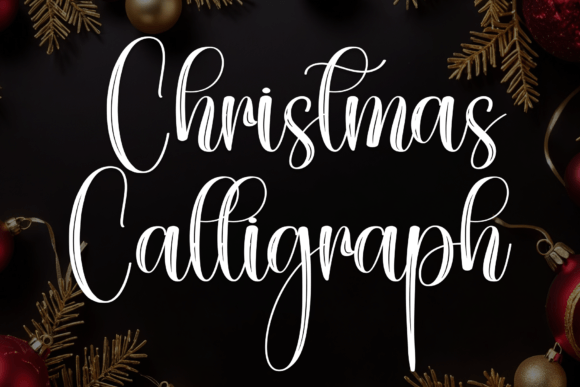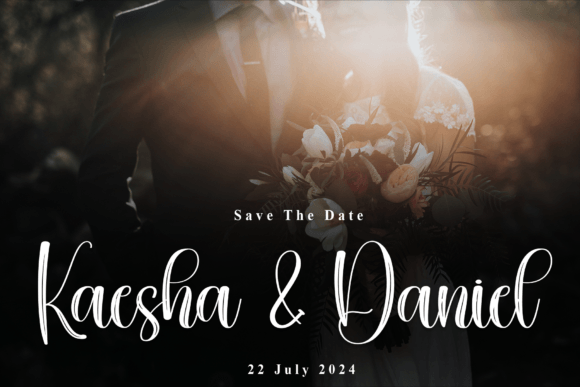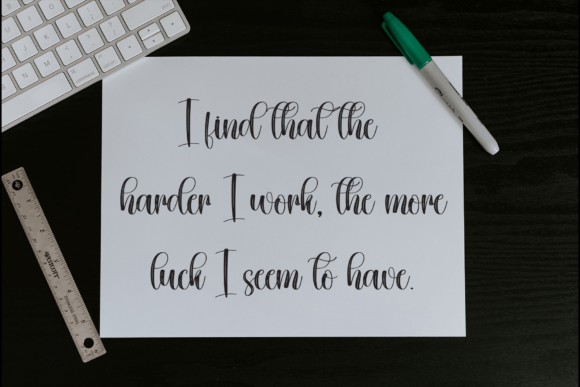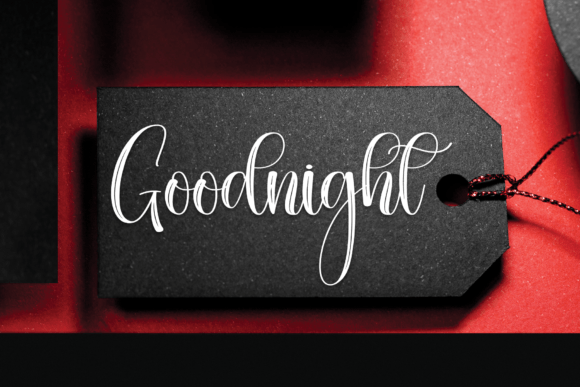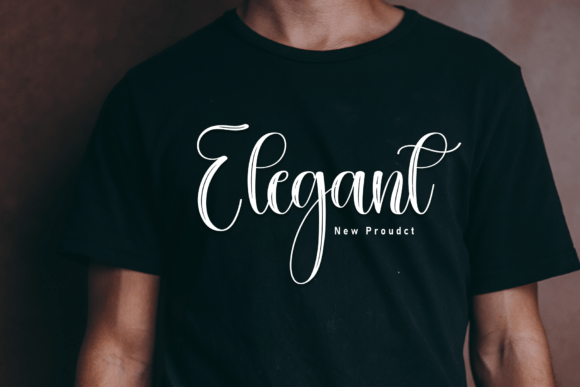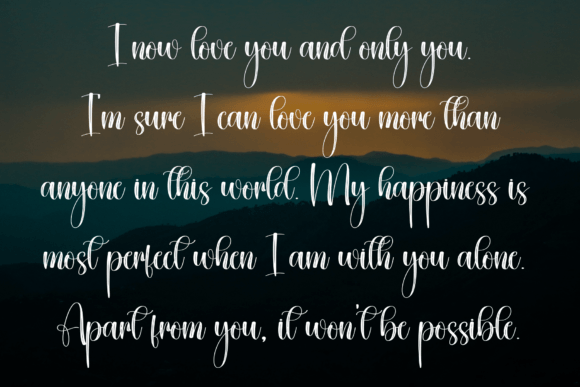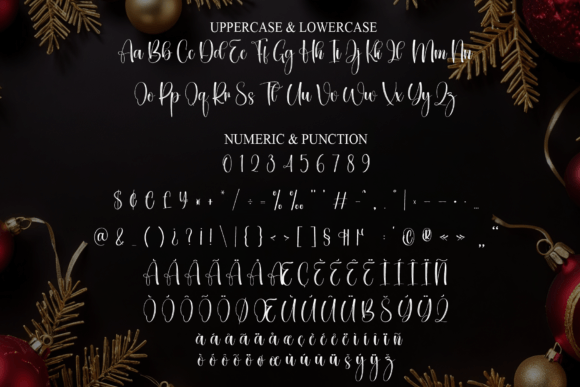
Deck the Halls with a Personal Touch: The Magic of Christmas Calligraph Font
As I sit by the fireplace, surrounded by twinkling lights and the warmth of the season, I find myself itching to create something special for my loved ones. The holiday season is a time for connection, love, and making memories that last a lifetime. And what better way to express that than with a handwritten message, infused with the spirit of Christmas?
That’s where the Christmas Calligraph Font comes in – a charming, handwritten font that brings a festive touch to your holiday messages. Its elegant and flowing letters add a personal and joyful feel to Christmas cards, invitations, and decorations, making it the perfect tool for designers looking to spread cheer with a handwritten touch.
Key Features of Christmas Calligraph Font
- Unique Characteristics: Elegant, cursive script font with a festive touch, ideal for Christmas and holiday-themed designs, invitations, and cards
Designer Review: Christmas Calligraph Font
First impressions count, and the Christmas Calligraph Font ✨ does not disappoint. Its elegant, cursive design makes it perfect for creating a festive atmosphere in your holiday designs. The font’s versatility shines through in its many OpenType features, which allow for a wide range of stylistic variations.
- ⚠️ The font’s limited character set may be a drawback for some users, especially those who need to typeset lengthy texts.
- ⚠️ Some users may find the font’s ligatures and swashes overwhelming or difficult to use, especially for those who are not familiar with OpenType features.
Overall, the Christmas Calligraph Font is a wonderful addition to any designer’s toolkit. While it may have some limitations, its beauty and versatility make it a valuable resource for creating stunning holiday designs.
The Christmas Calligraph Font is perfect for creating festive invitations, greeting cards, and social media posts. To get the most out of it, try combining it with other festive elements like holly, snowflakes, or Christmas trees. Experiment with different font sizes, colors, and alignments to create a unique and eye-catching design.